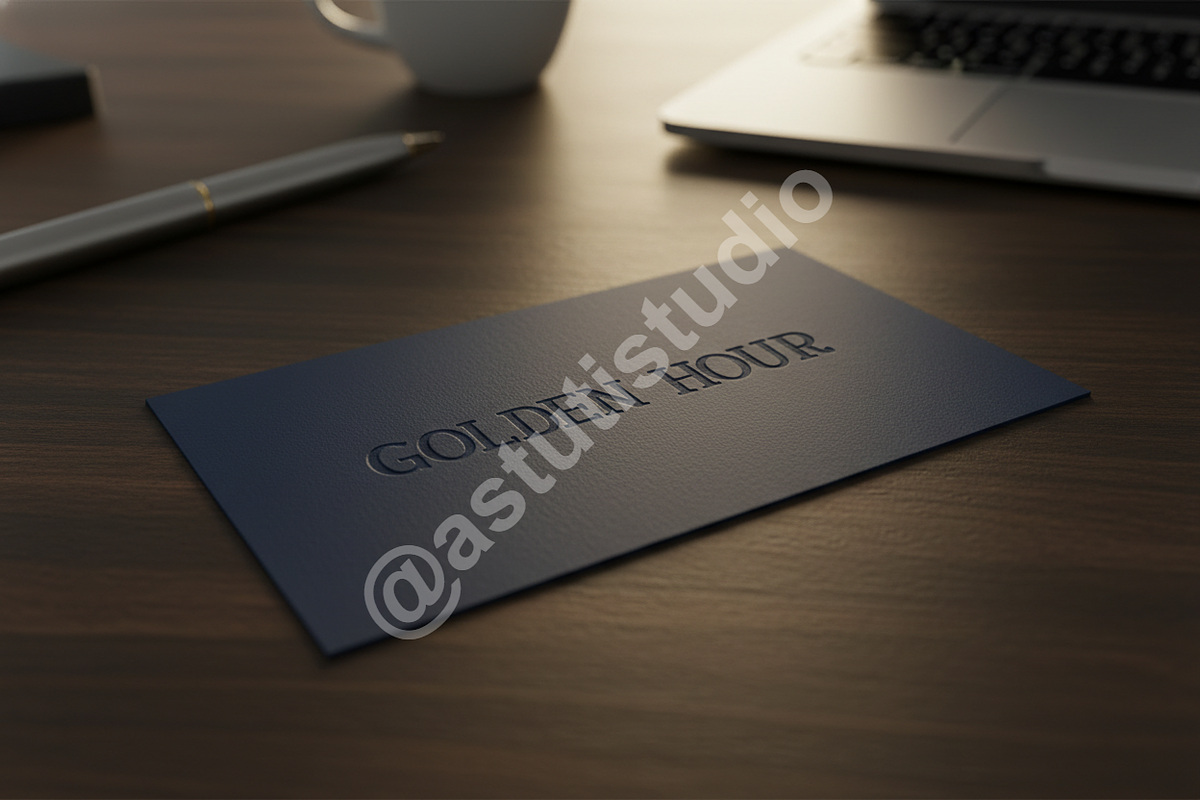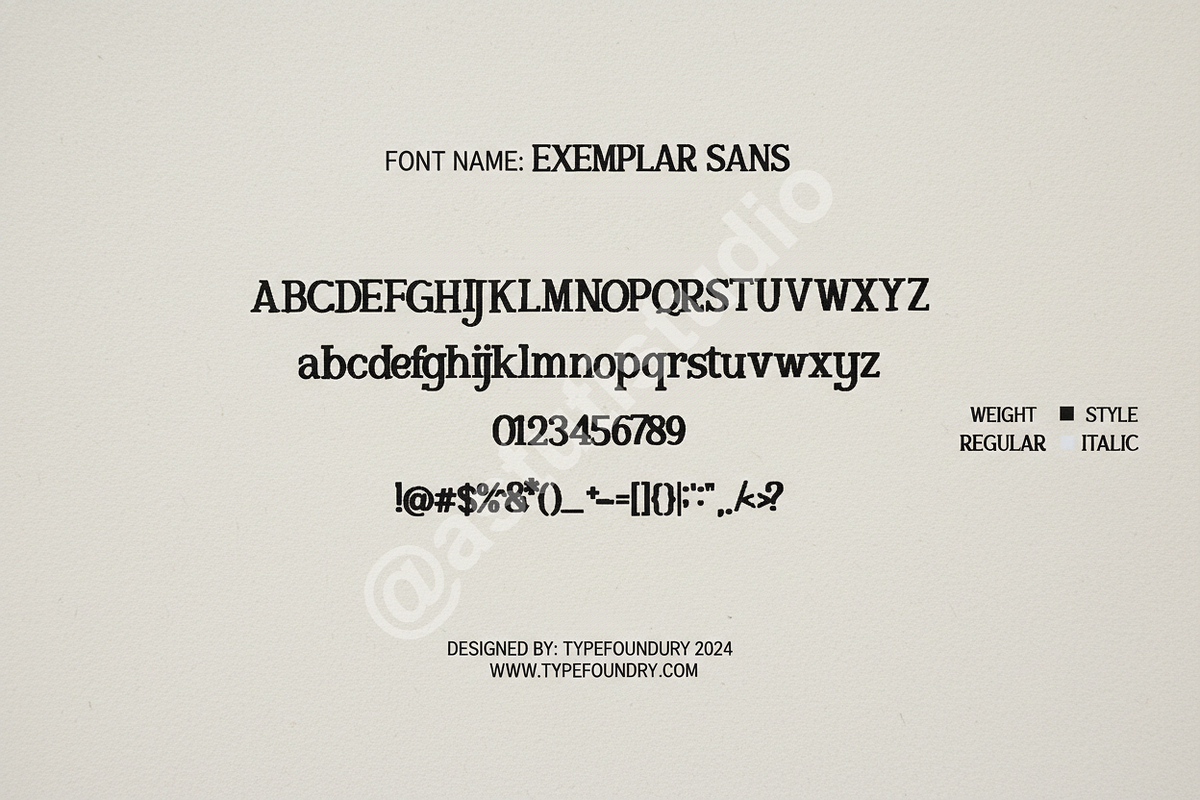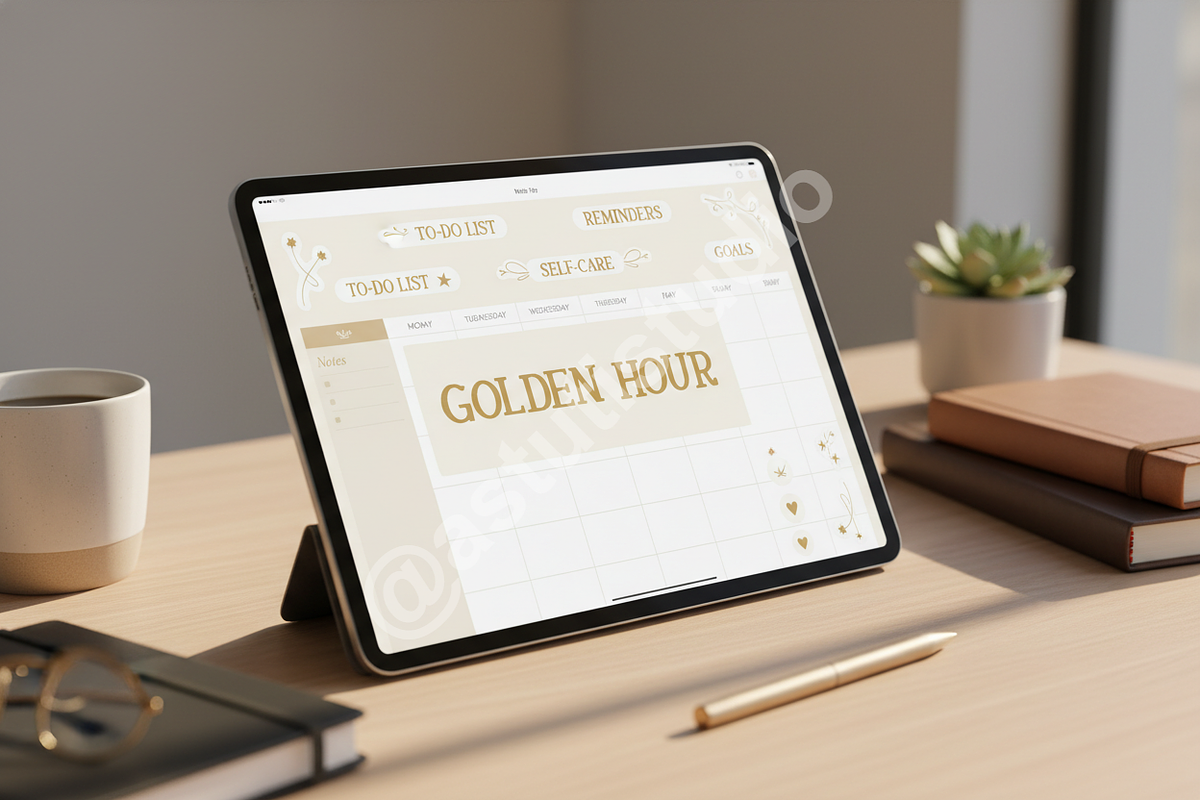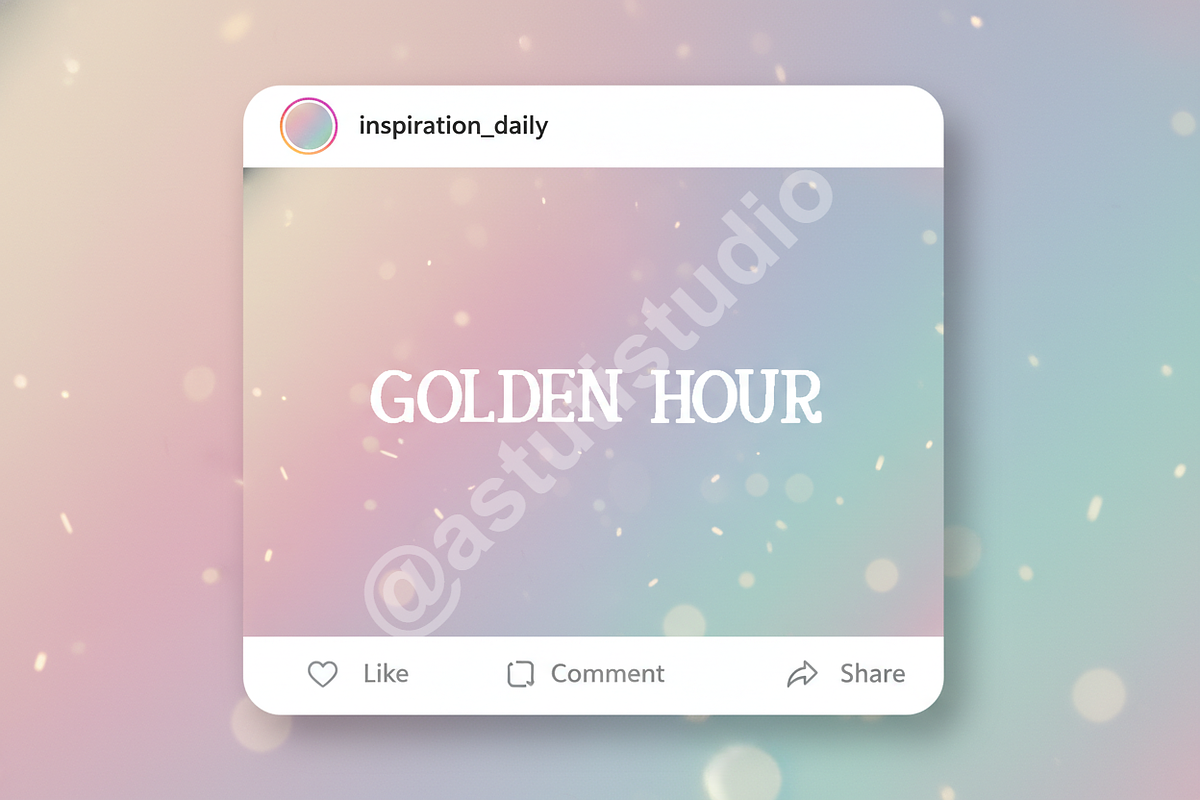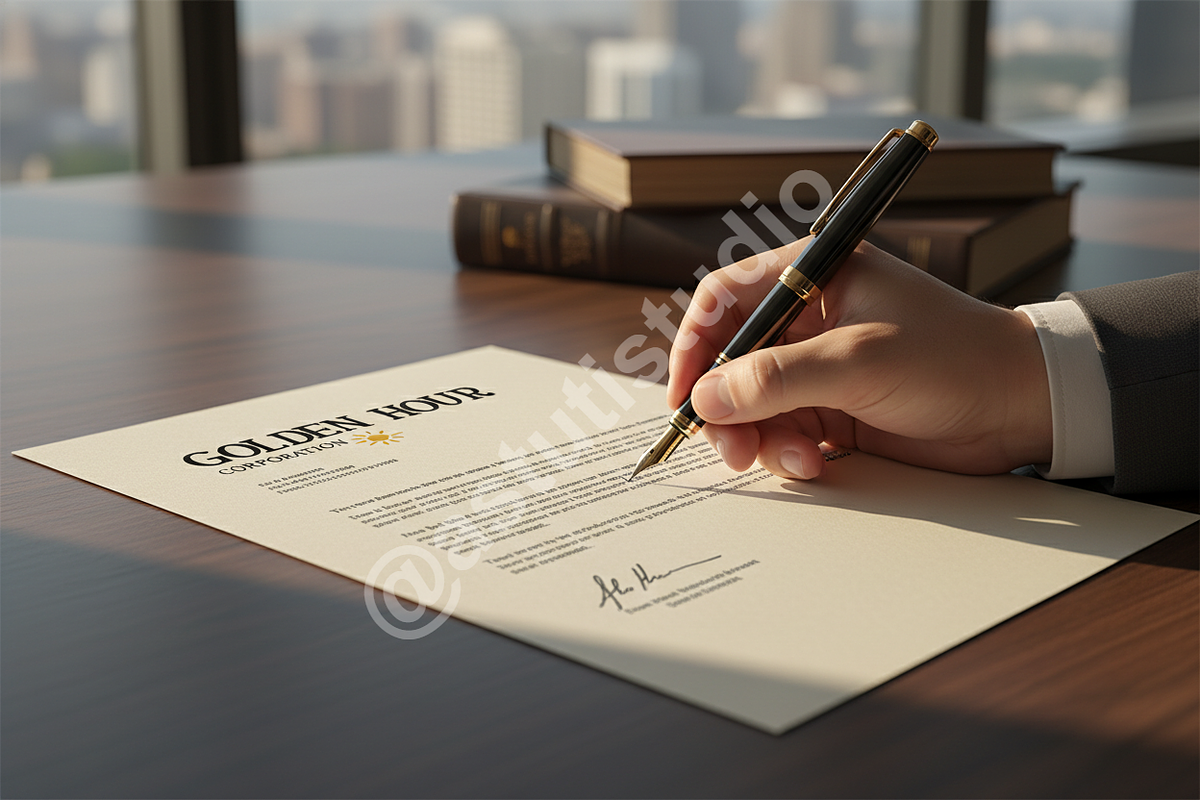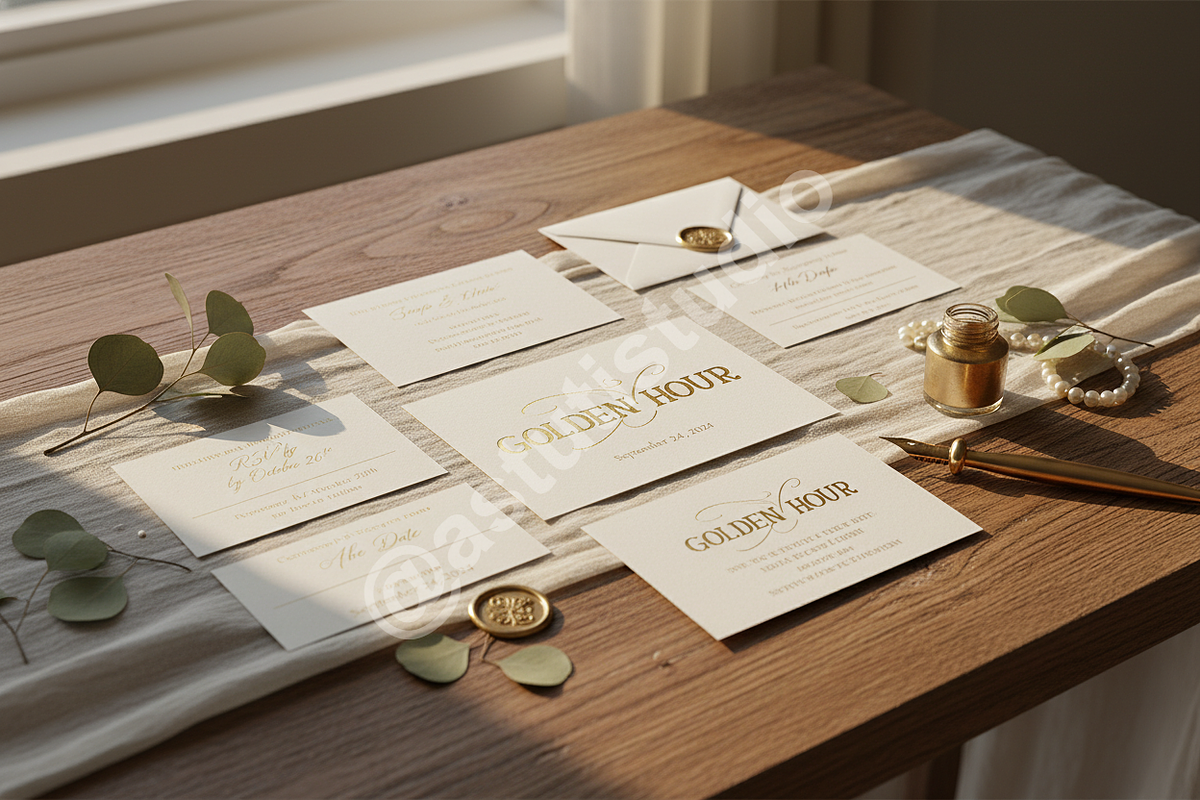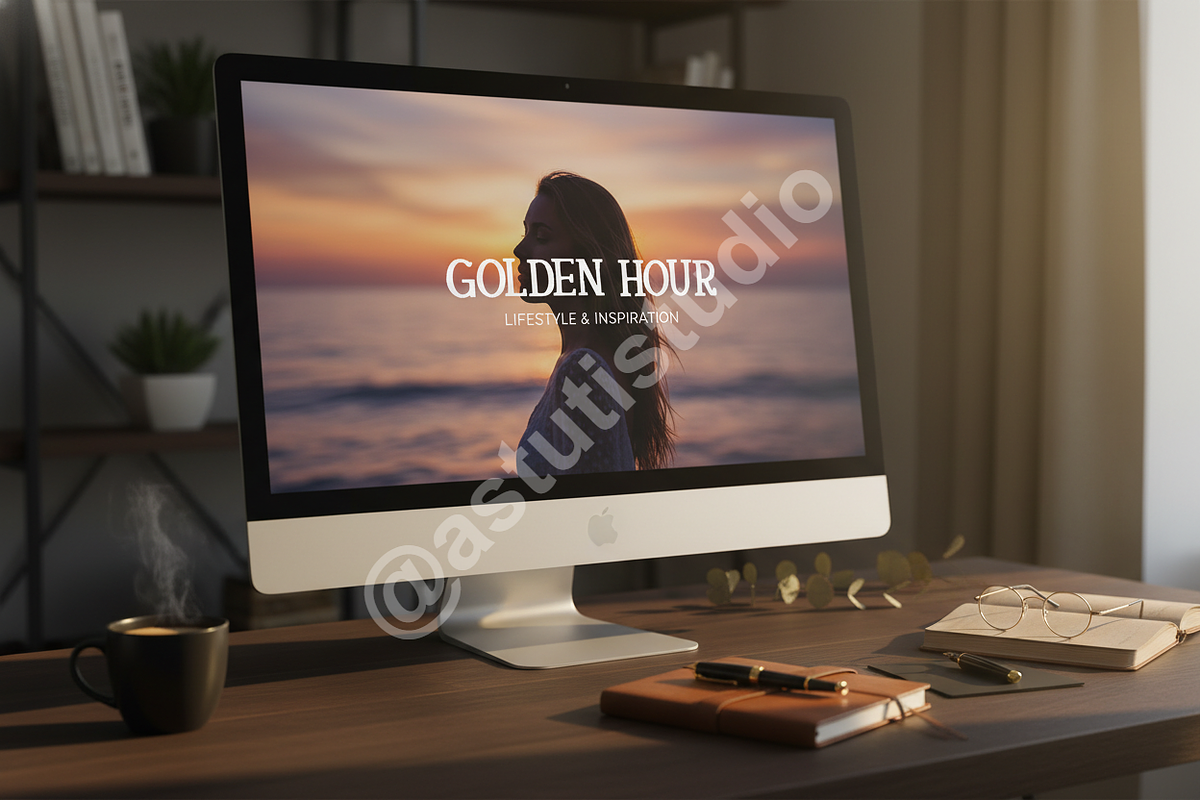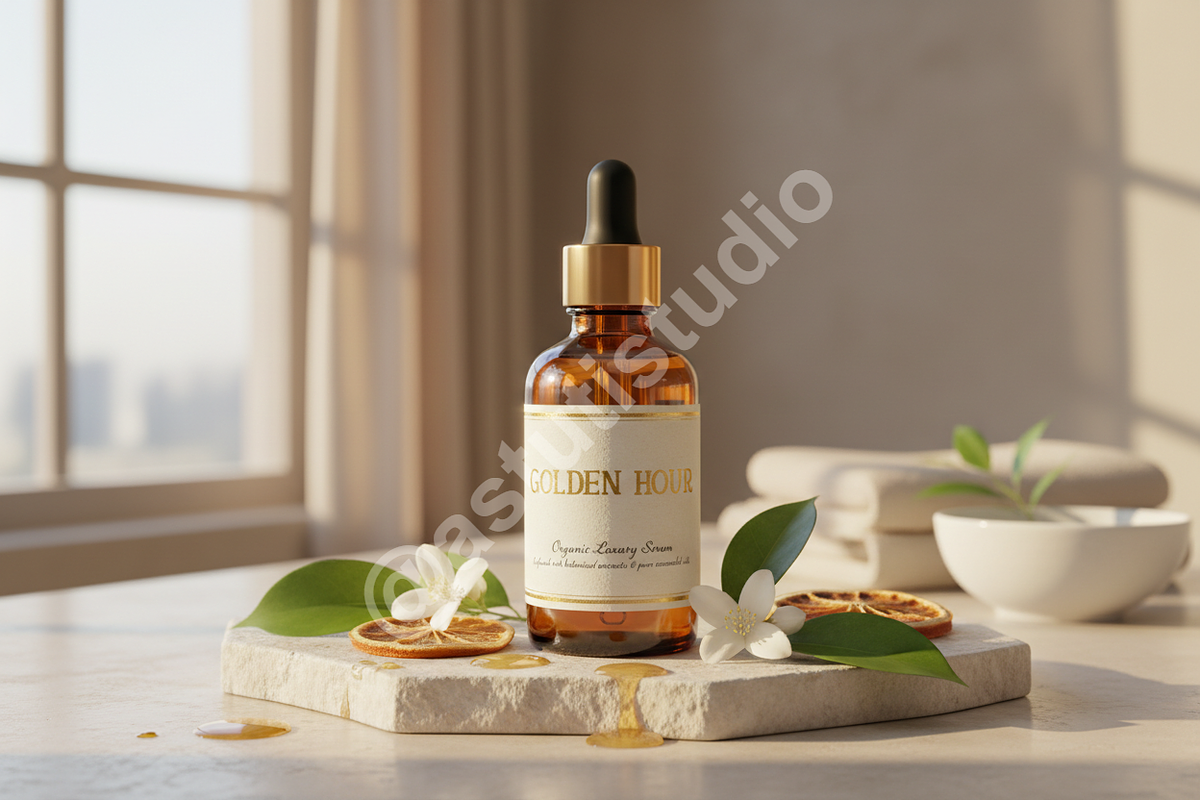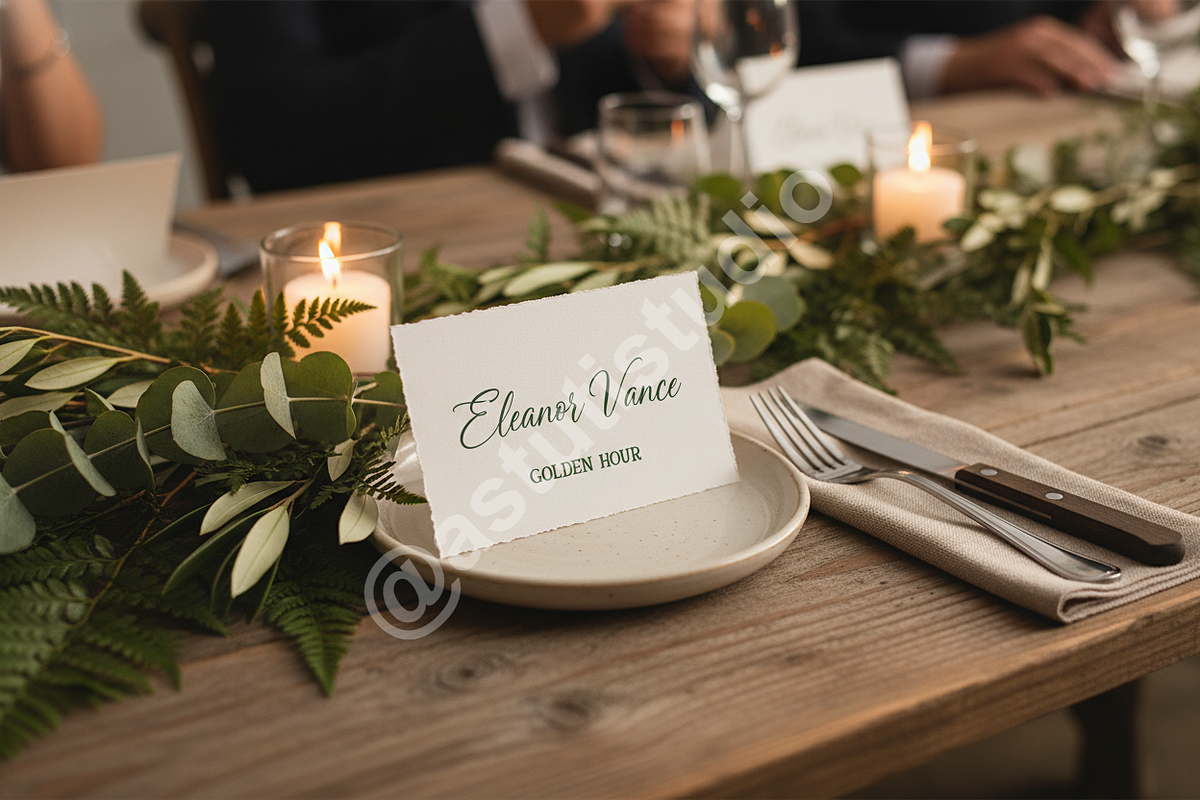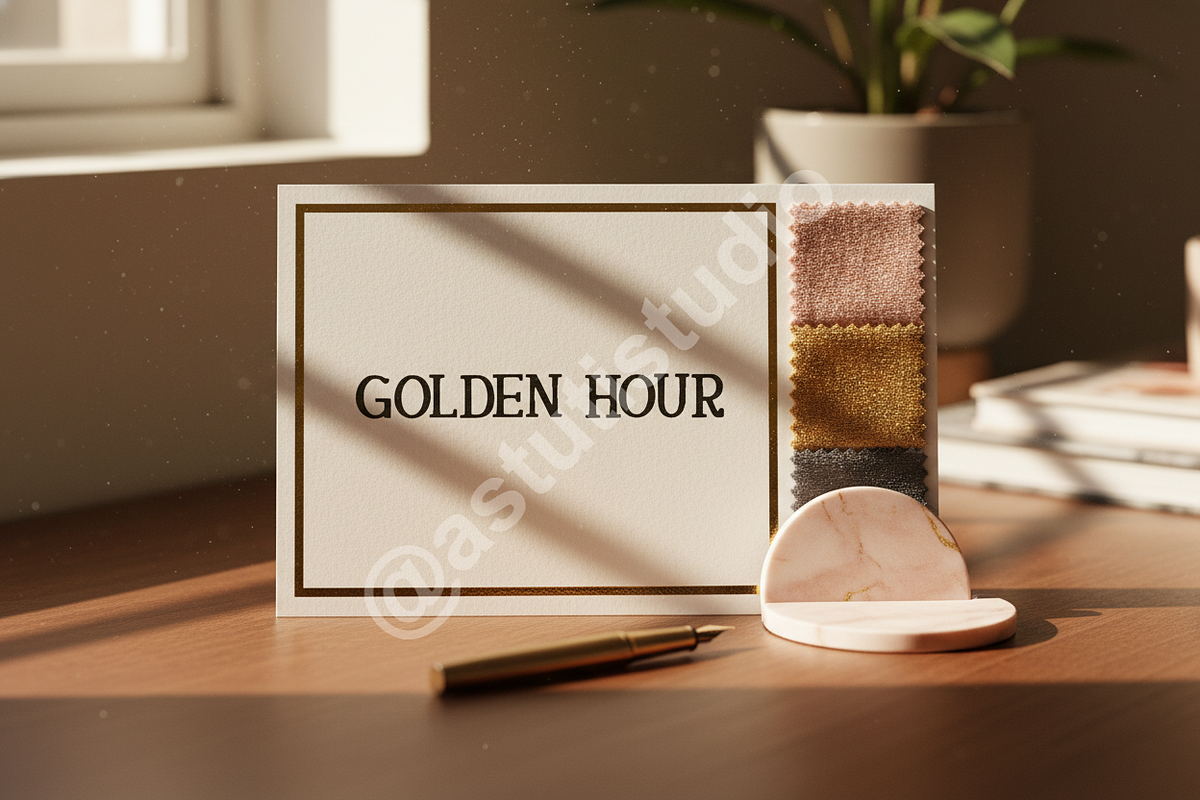
Cuvafu - Luxury Serif Font & Elegant
Introducing Cuvafu, a meticulously crafted serif typeface designed to embody sophistication and timeless elegance. With its refined curves and balanced proportions, Cuvafu is the quintessential choice for projects demanding a touch of premium luxury. Elevate your brand's presence, enhance editorial layouts, and captivate audiences across all social media platforms with this exquisite font.
- Elegant Serif Design: A classic yet modern aesthetic that exudes luxury and refinement.
- Versatile Application: Ideal for high-end branding, magazine layouts, posters, invitations, and digital campaigns.
- Optimized for Readability: Carefully balanced letterforms ensure clarity and impact in both headlines and body text.
- Multilingual Support: Broad language coverage to reach a global audience.
- Comprehensive Glyphs: Full set of uppercase, lowercase, numbers, punctuation, and ligatures for professional design applications.